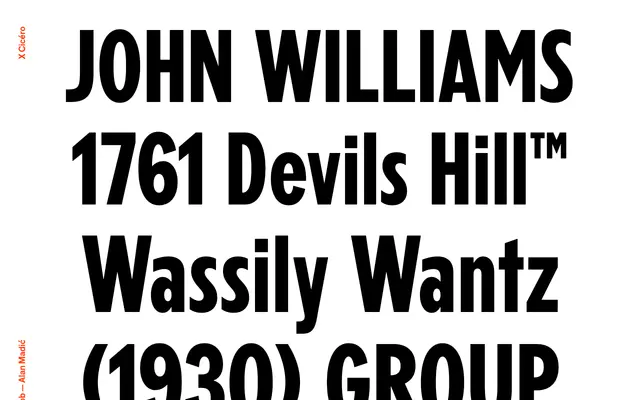
An experimental display typeface from X Cicéro, shown through a fragmented specimen of mixed cases, symbols and stylistic marks.
The page offers little descriptive copy, presenting instead a specimen of typeset lines combining proper names, numerals, symbols and trademark glyphs in an intentionally disordered arrangement. This suggests a typeface designed for expressive or editorial display use rather than text setting. X Cicéro is a student foundry associated with ESAD Grenoble-Valence, situating Jakob within an academic experimental type context.
The page content is extremely sparse and stylistically fragmented, suggesting an experimental or display typeface with an unconventional character set. Classified as display due to the decorative and expressive nature implied by the mixed symbols, asterisks and registered trademark glyphs shown.